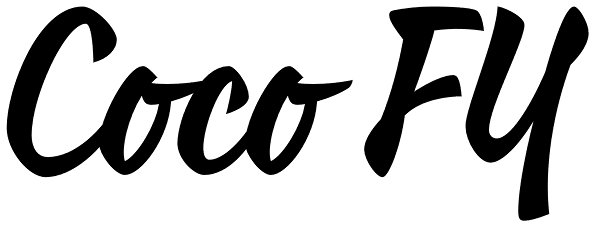
Coco FY
Coco FY is a vintage script font reminding of storefronts sign paintings, and other hand-lettered street signs. With its high contrasts and its condensed forms, Coco FY will give an original retro style to your designs. This font will certainly find...